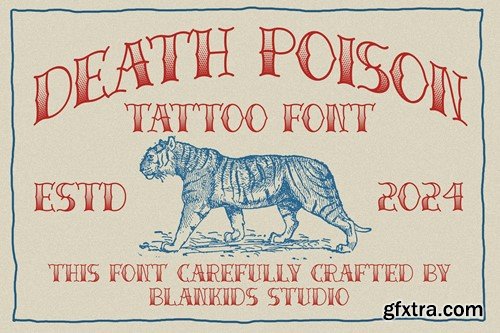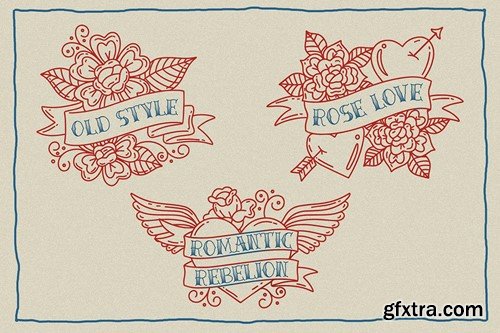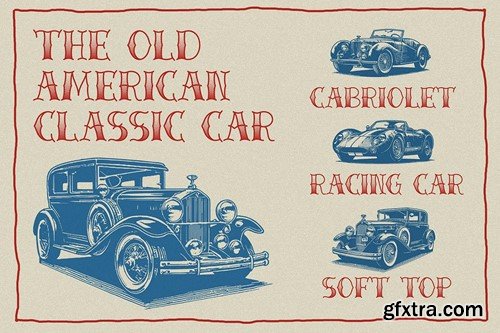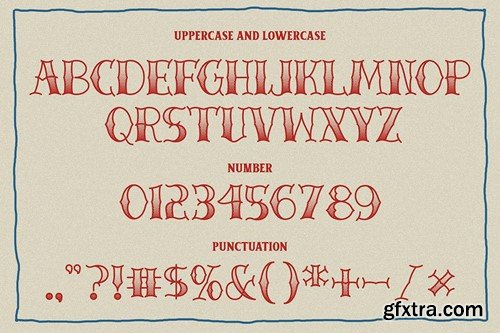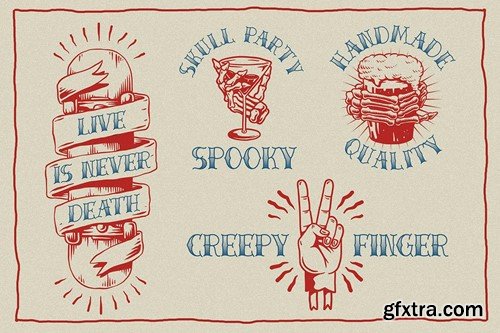
死亡毒药 - 涂鸦字体 VH2N565
Introducing "Death Poison" – A Bold Fusion of Tattoo Artistry and Vintage Vibes! Unleash the rebellious spirit of the past with our captivating font, "Death Poison." Crafted with meticulous attention to detail, this typeface seamlessly marries the edginess of tattoo culture with the timeless allure of vintage and retro aesthetics. Picture the raw energy of ink meeting the nostalgia of yesteryear – "Death Poison" captures this essence flawlessly. Its bold strokes and intricate details echo the craftsmanship of classic tattoo designs, while the subtle retro undertones add a touch of old-school charm. This font isn't just a typographic choice; it's a statement. Perfect for those who crave individuality and seek to make a lasting impression, "Death Poison" transforms any project into a masterpiece. Whether you're working on a logo, merchandise, or any creative endeavor, this font injects a dose of attitude and style that's impossible to ignore. Stand out from the crowd and let "Death Poison" become the voice of your brand or project. Embrace the power of the past and the rebellion of tattoo culture with this one-of-a-kind font that speaks volumes in every curve and contour. Give your designs a distinctive edge – choose "Death Poison" and redefine the boundaries of typography. Because when it comes to making a statement, this font is the ultimate poison for mediocrity.